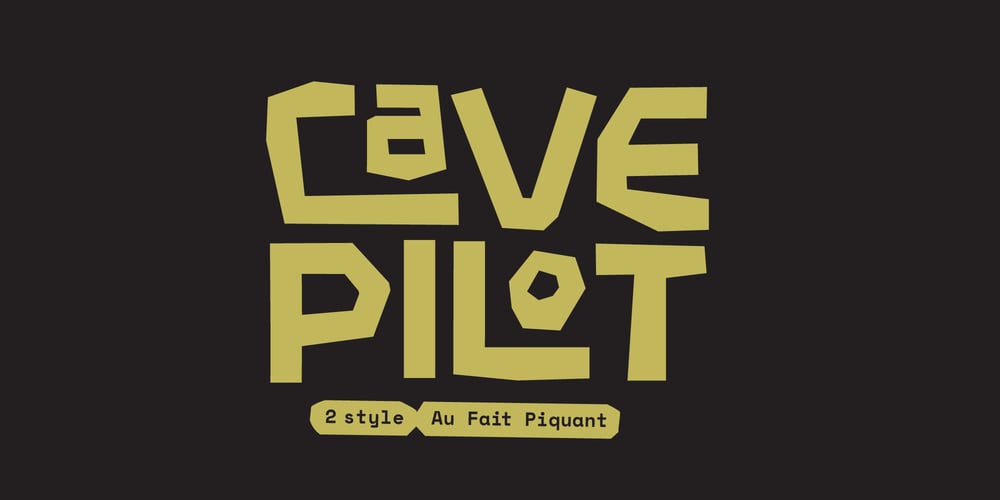
Cave Pilot Font Family was designed by Andrew Seah and published by Baqoos. Cave Pilot contains 2 styles and family package options. Cave Pilot is an au fait piquant handwritten mix cased typeface apt for headline, editorial, branding, packaging, printed materials and typographic applications. 200+ glyphs including punctuation and numerical.